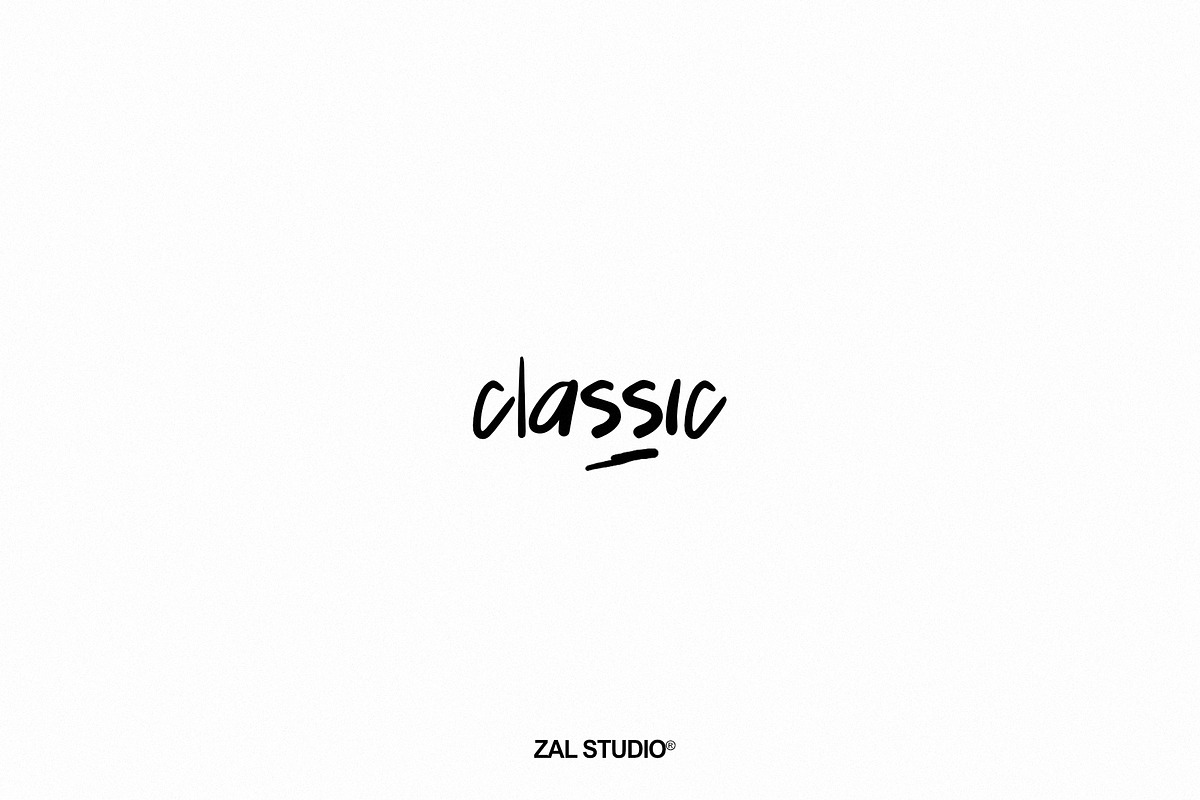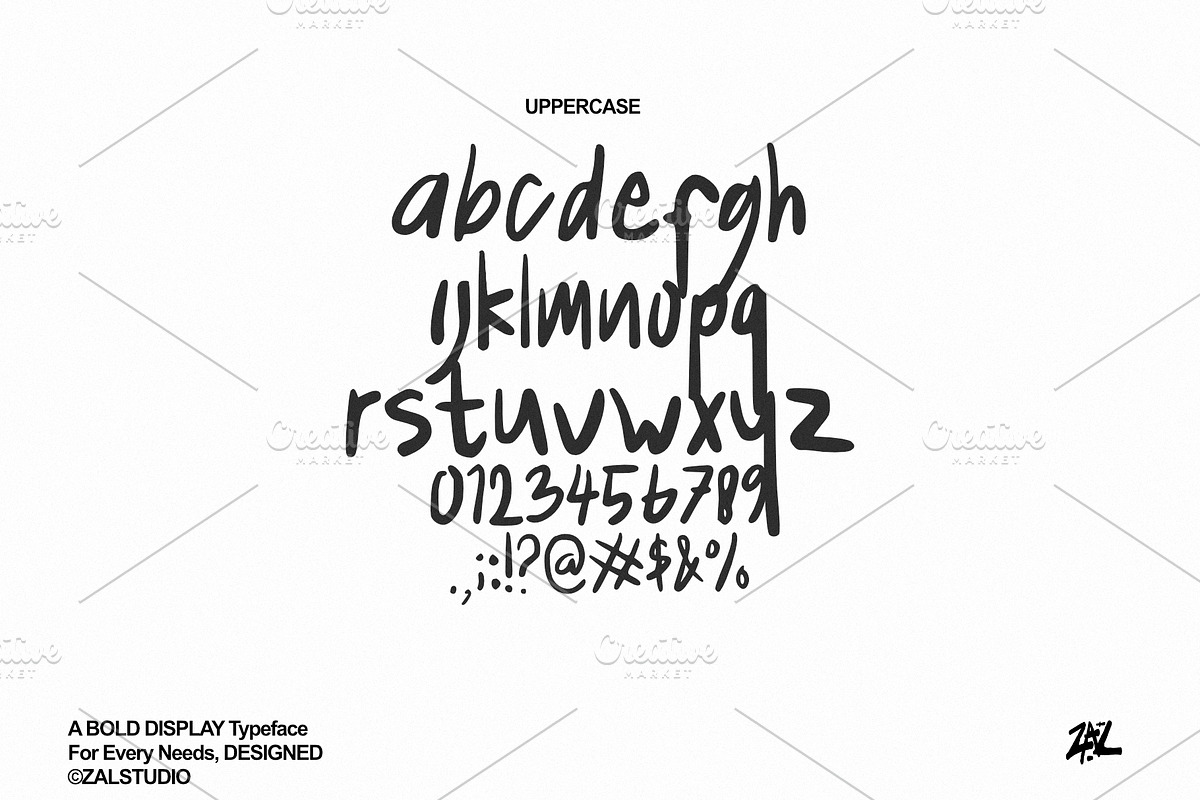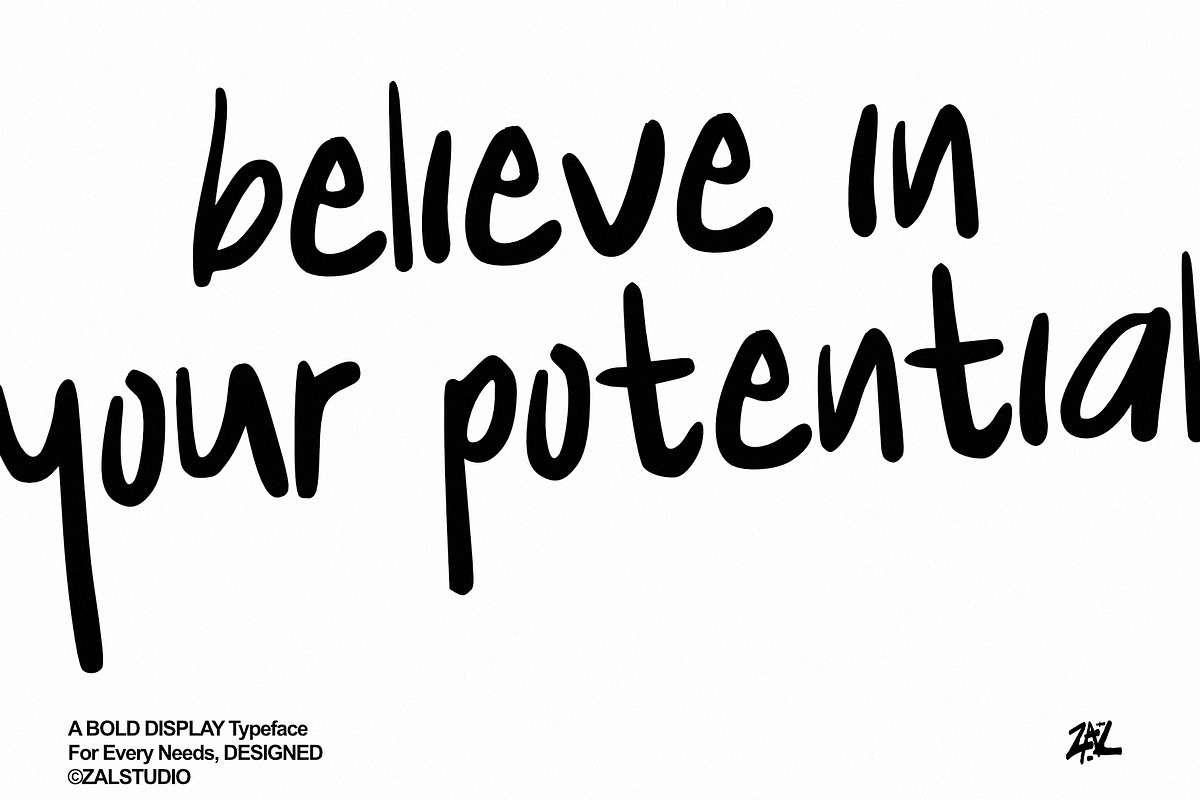
Classic - Handwritten Brush Font
Classic - Handwritten Brush Font is a stylish handwritten brush font designed to bring an authentic, expressive, and handcrafted feel to your creative projects. Featuring natural brush strokes, dynamic letterforms, and a bold artistic character, this font is perfect for designers looking to create eye-catching typography with a personal touch.
Its versatile handwritten style works beautifully for branding, logos, posters, apparel, packaging, social media graphics, invitations, and creative advertising. Whether you are creating a vintage-inspired design, modern lifestyle branding, or bold promotional artwork, Classic adds a distinctive handmade aesthetic to your typography.
Handwritten brush lettering style
Authentic handcrafted appearance
Bold and expressive letterforms
Perfect for modern and vintage-inspired designs
Versatile display font for personal and commercial projects
Easy to use for branding, print, and digital design
Classic - Handwritten Brush Font is a great choice for designers, entrepreneurs, content creators, and creative professionals who want to add an authentic brush lettering aesthetic to their projects.